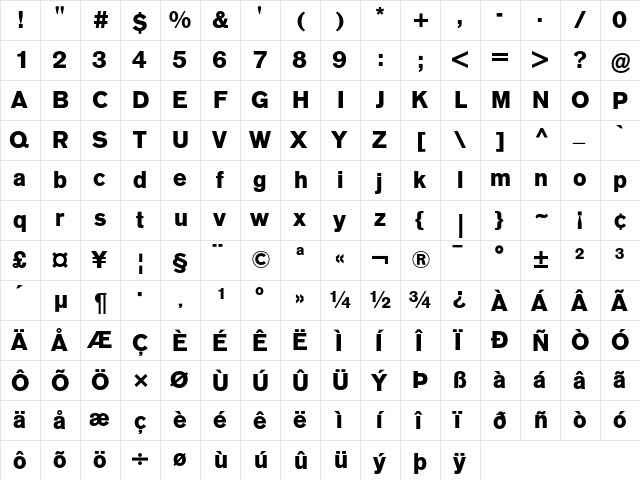
AG Old Face Bold
Design Context for AG Old Face Typeface
AG Old Face offers clean, dependable letterforms without strong stylistic allegiance, making it a practical choice for designers who need flexibility. The heavy weight commands attention and anchors typographic hierarchies.